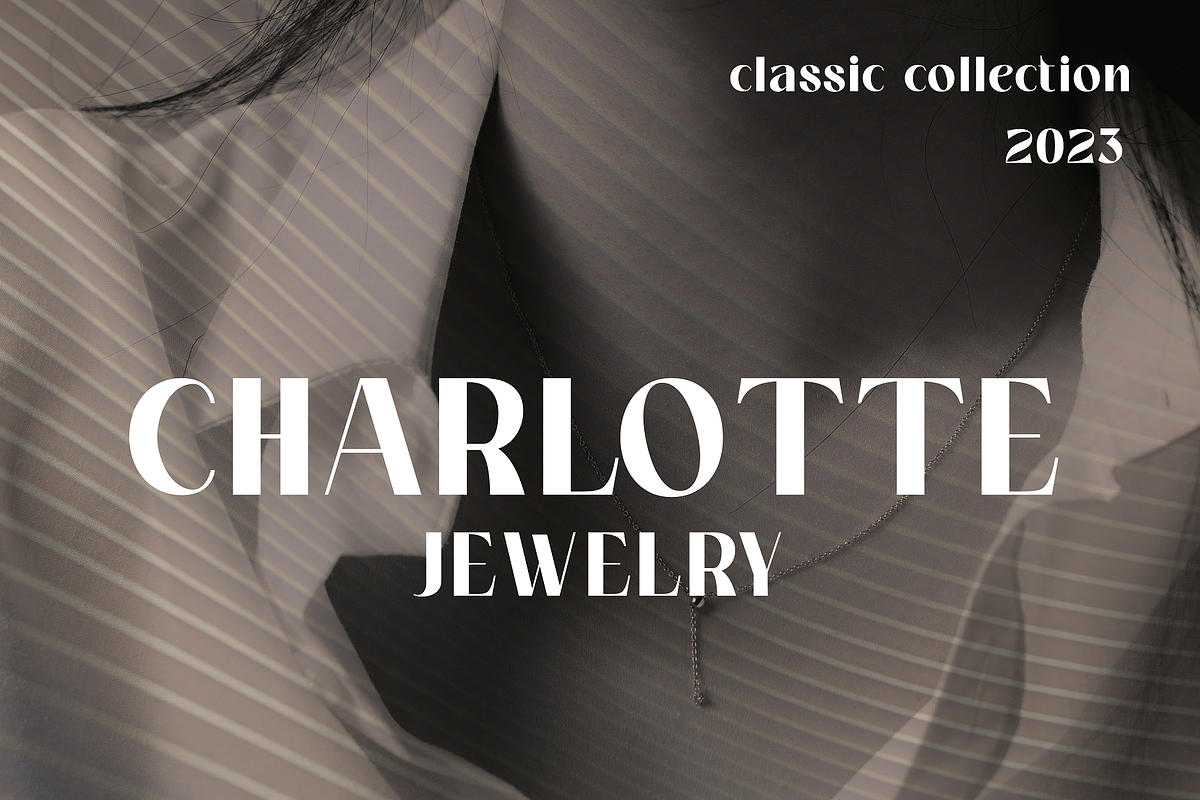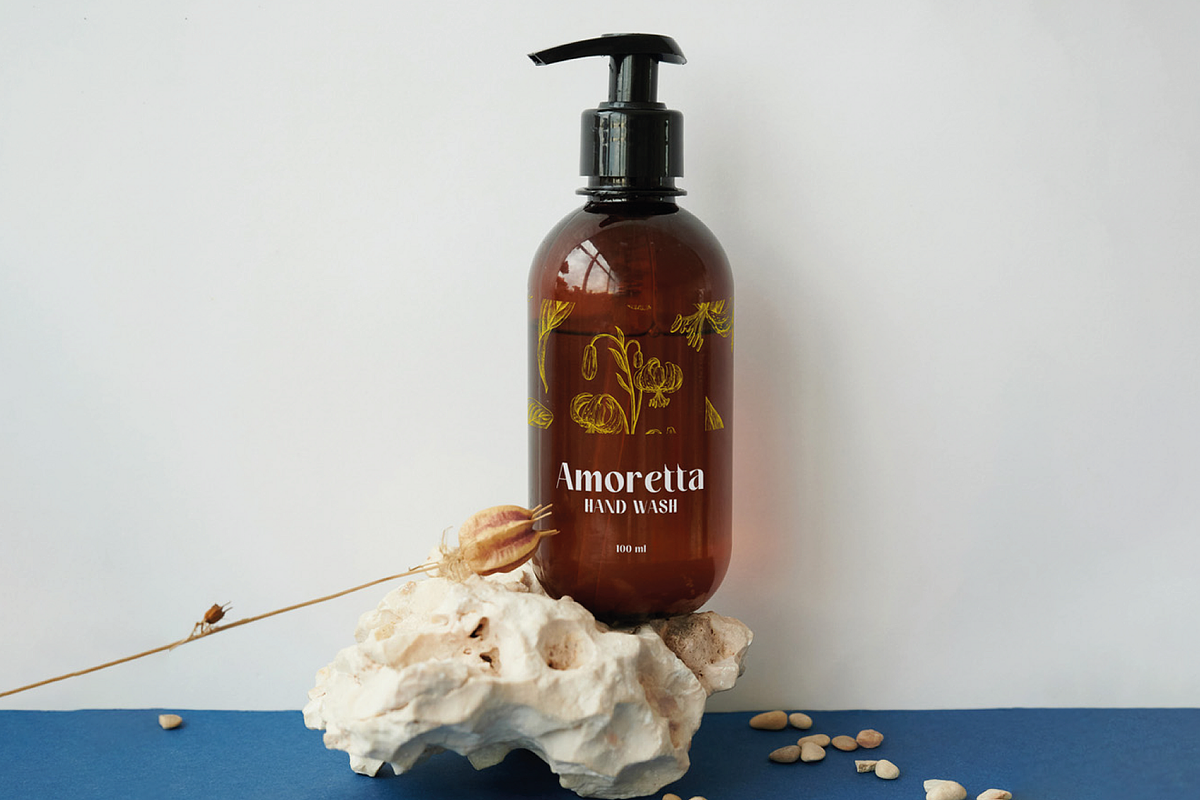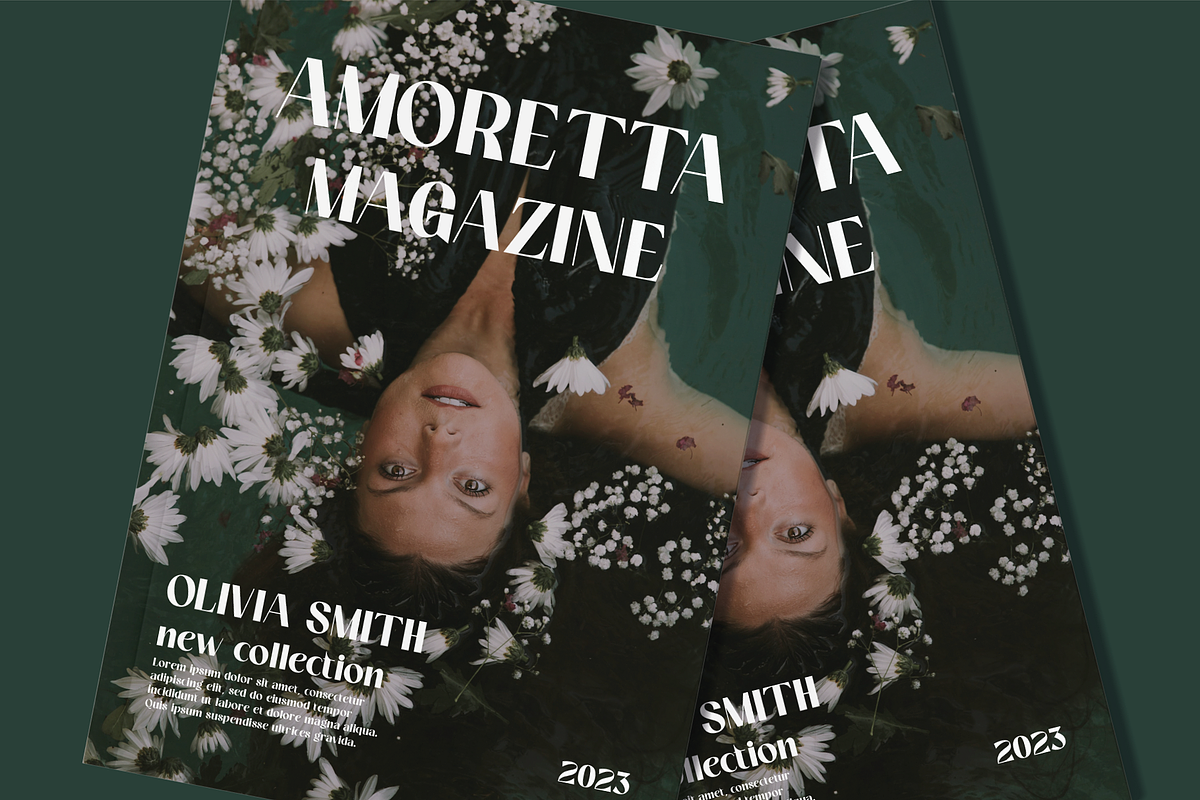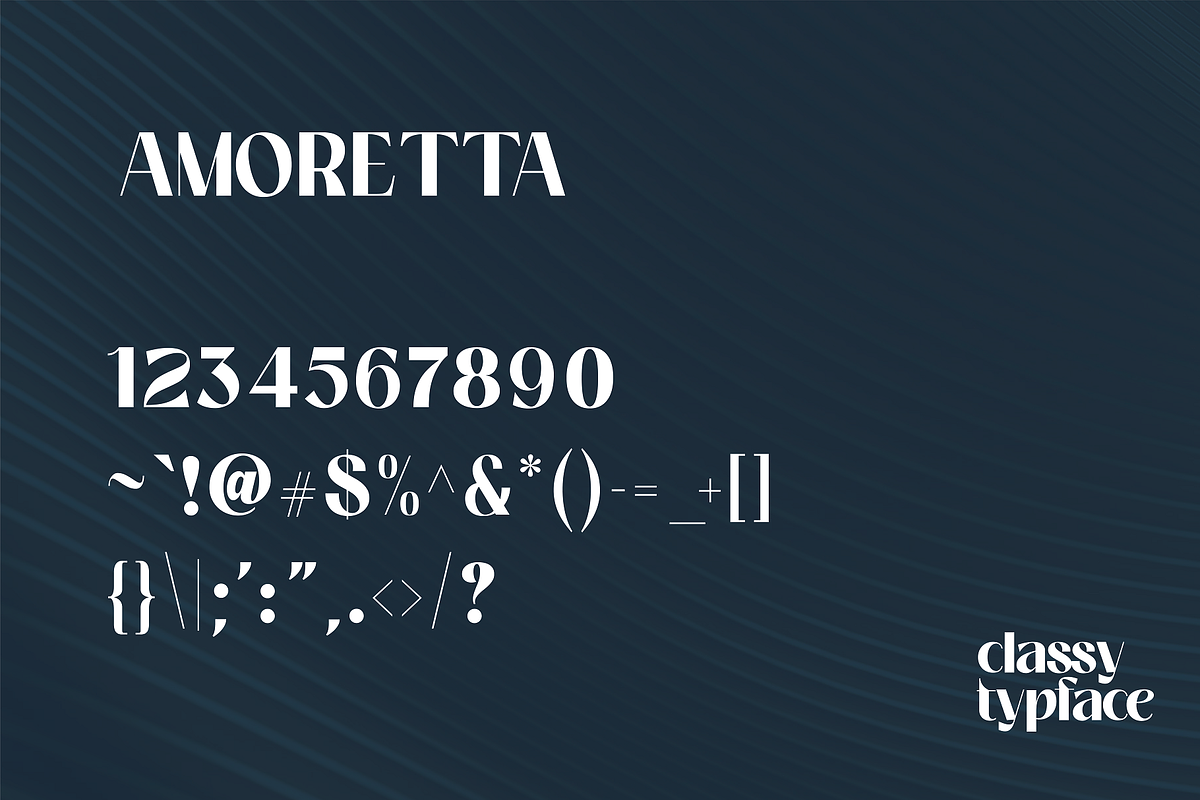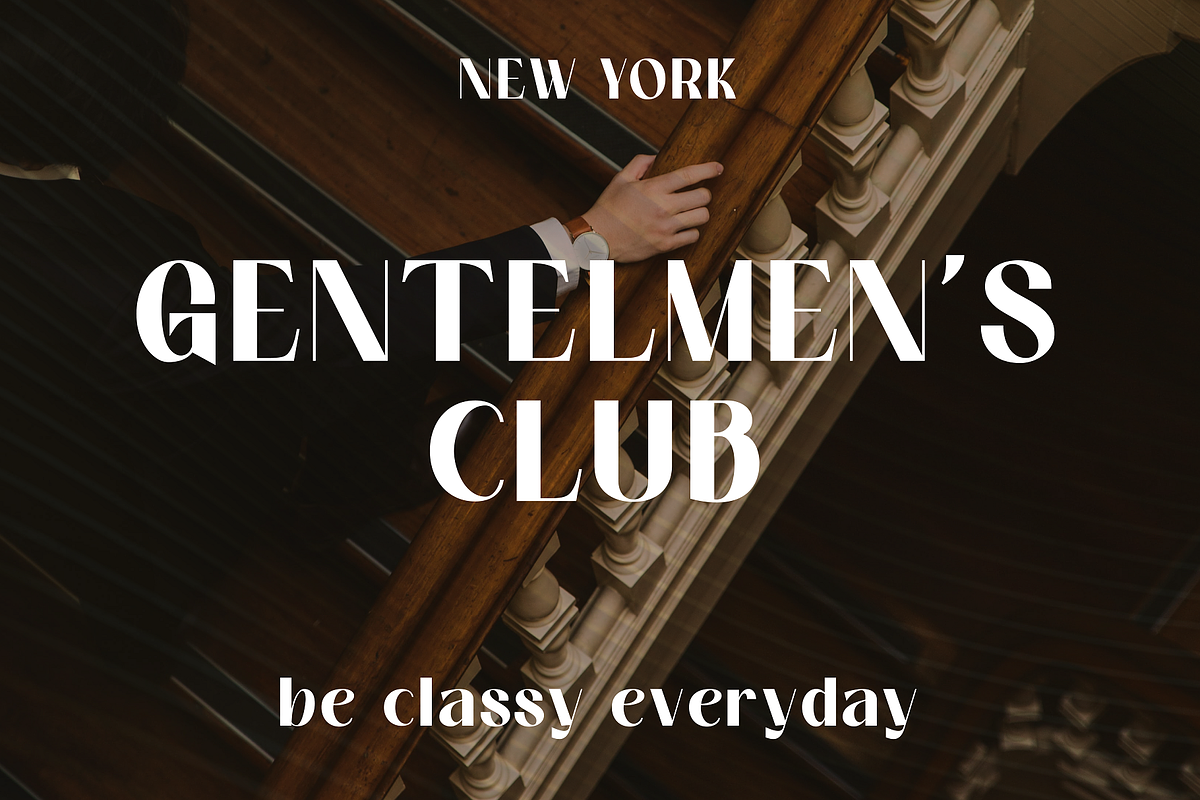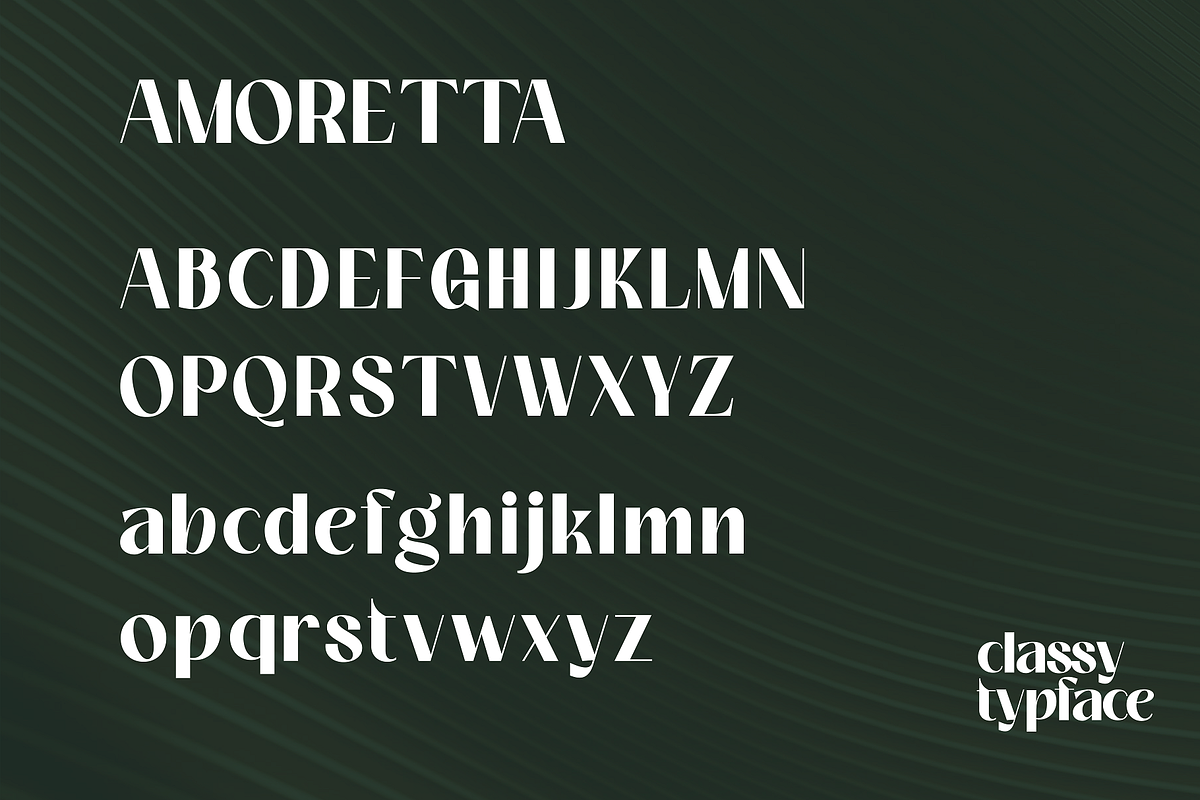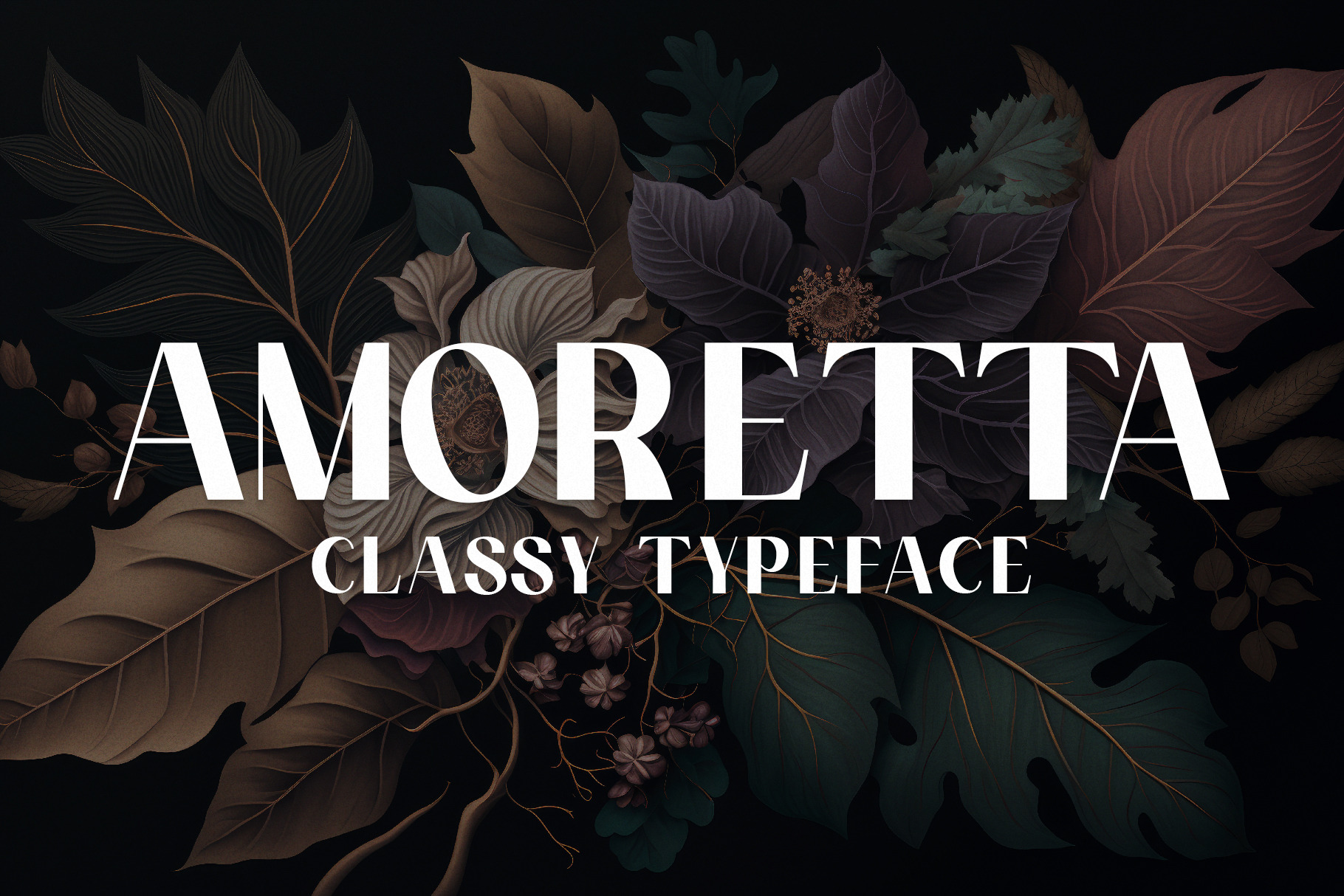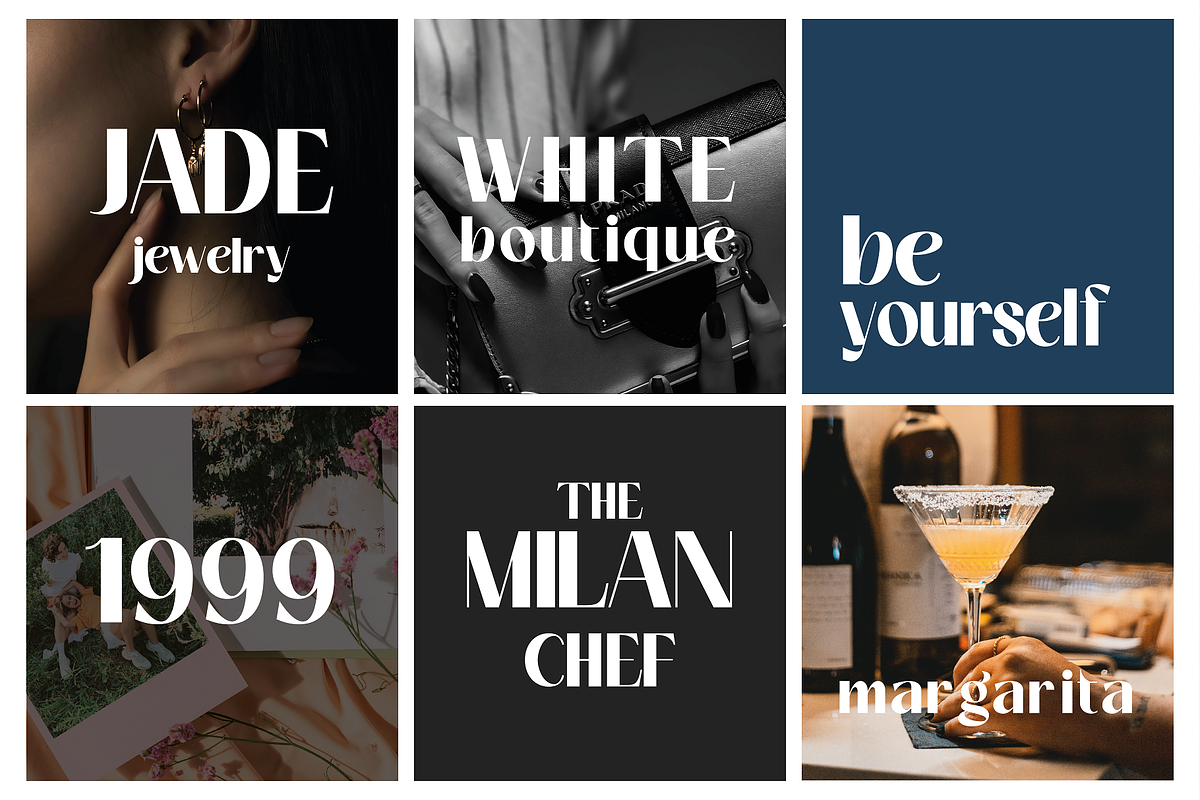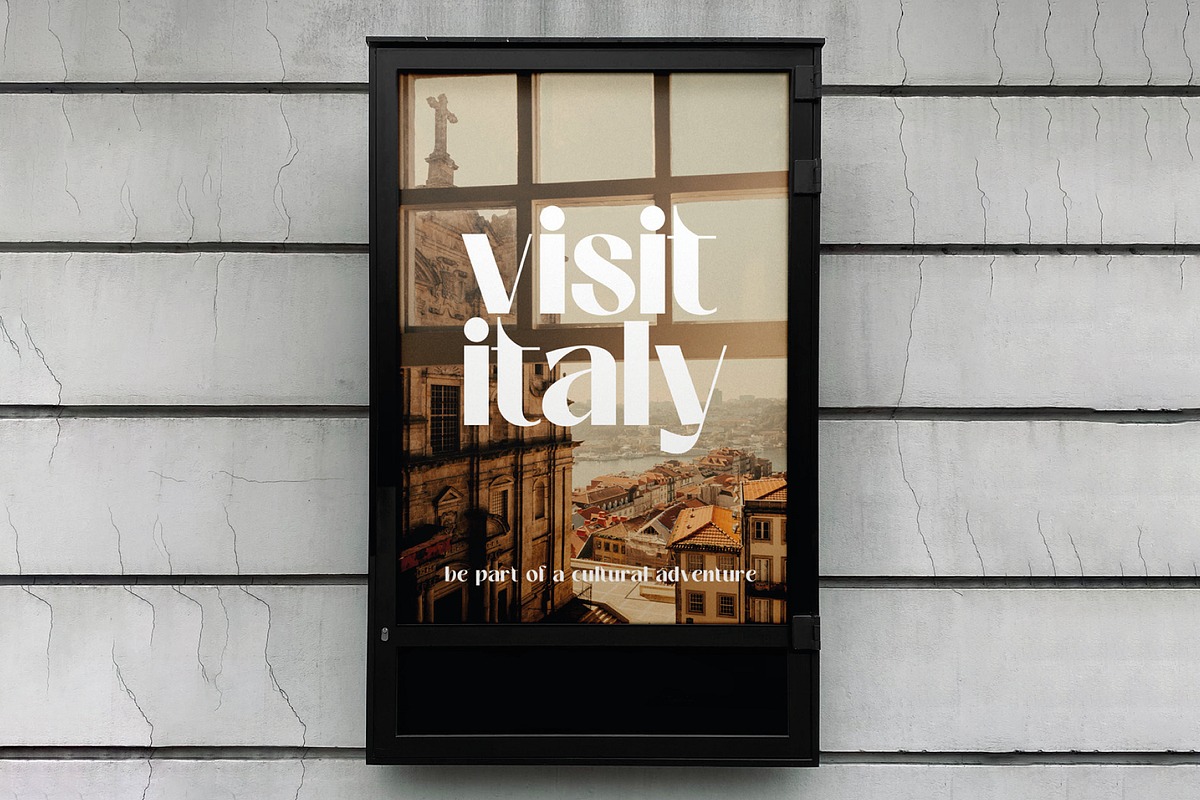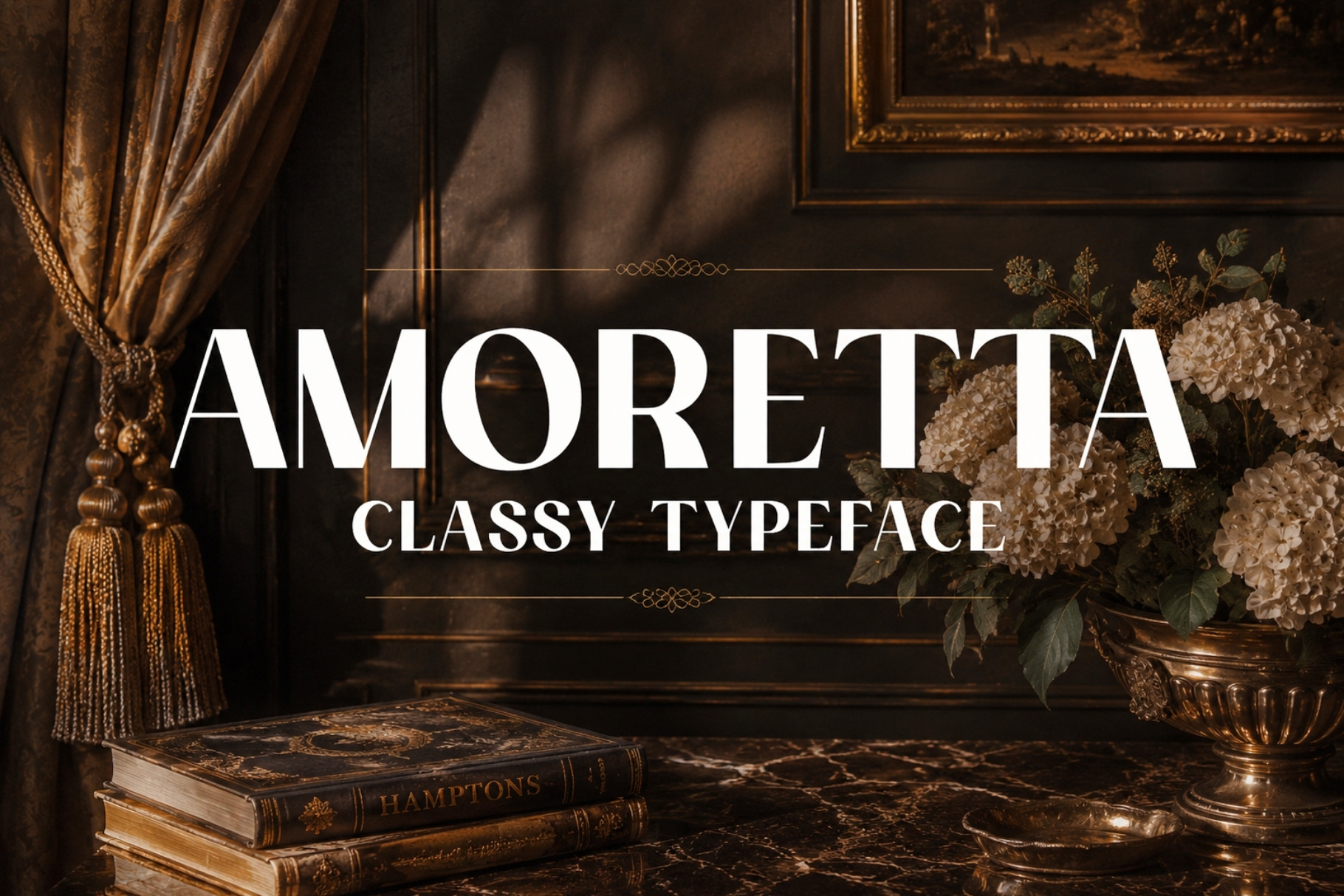
Amoretta - Classy Typeface
Amoretta is a stunning typeface that exudes elegance and sophistication. With its graceful curves and delicate serifs, it evokes a sense of timeless beauty and refinement. Whether used for branding, invitations, or editorial design, Amoretta adds a touch of luxury to any project.
Its versatility makes it suitable for both headings and body text, and its legibility ensures clear communication. Amoretta is the perfect choice for those seeking a typeface that embodies timeless beauty and sophistication.